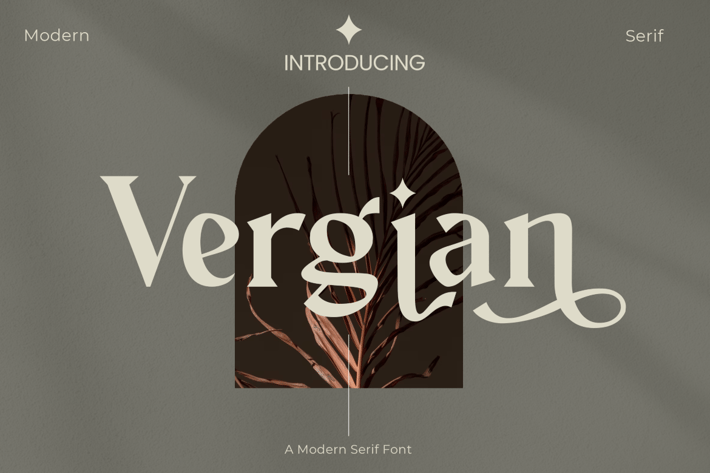
Modern Serif Font
Looking for a striking font that’s easy on the eyes? Whether you need a font for your magazine, website, or book, we’ve got a solution.
Introducing Vergian – a Modern Serif Font.
Clean and easily legible, Vergian is the perfect choice for any text that needs to stand out. Check it out and see the difference that a great font can make.
Multilingual & Ligature Support
Full sets of Punctuation and Numerals